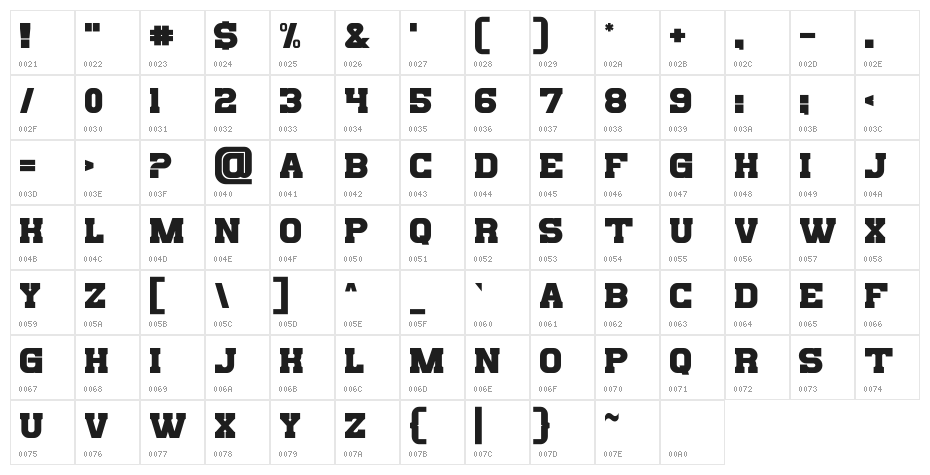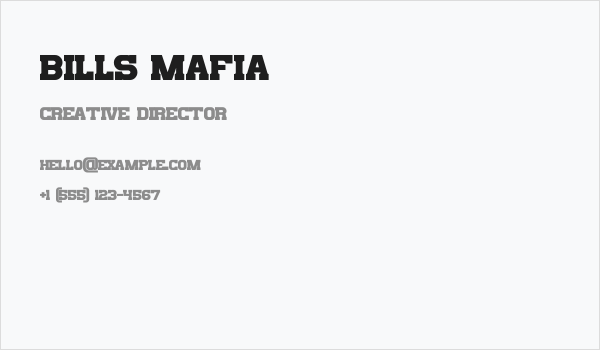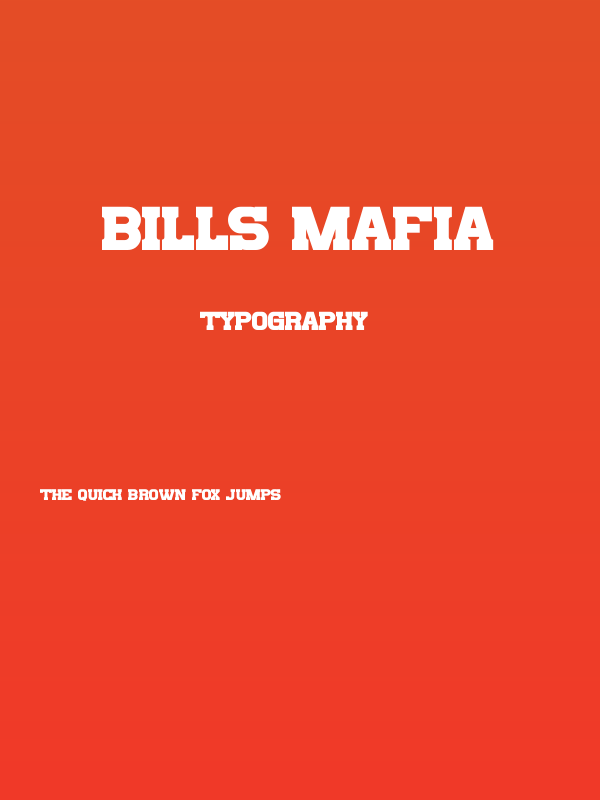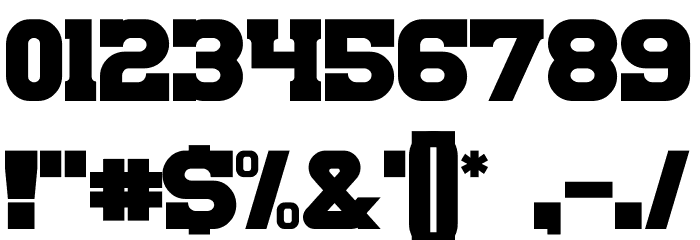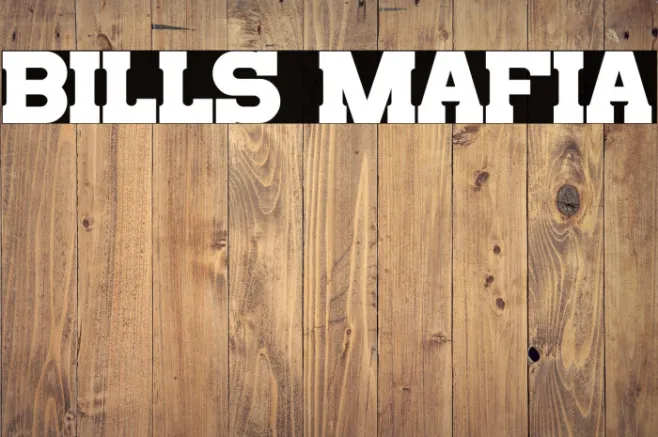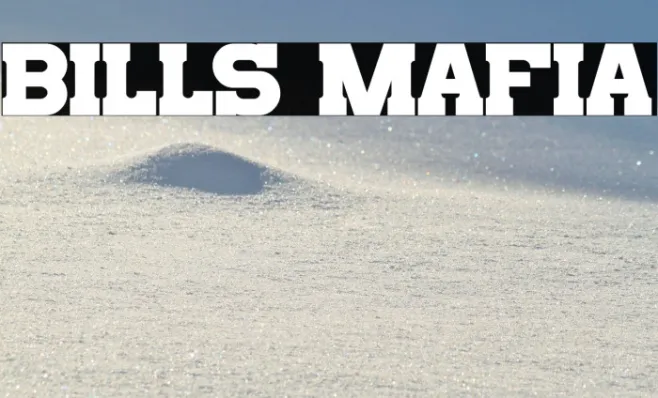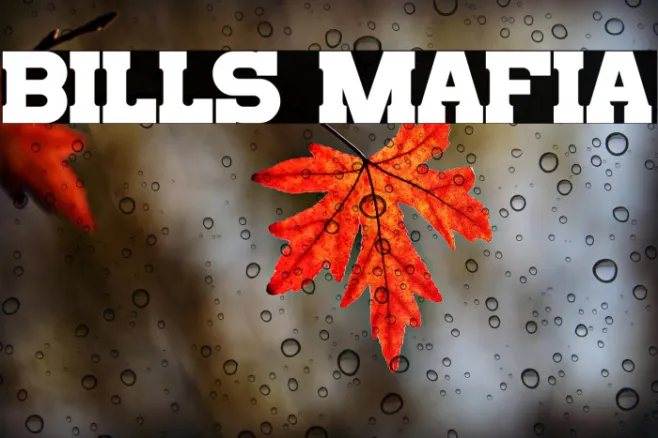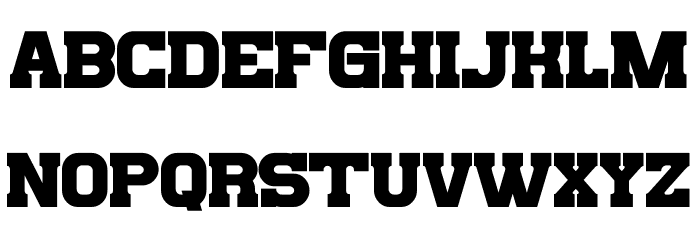
Bills Mafia Font
Bills Mafia Description
This font is a bold, impactful typeface characterized by its strong, block-like appearance. The letters are uniformly wide, with a consistent stroke thickness that gives it a robust and sturdy look. The uppercase and lowercase letters maintain a cohesive style, with the uppercase being particularly prominent and commanding attention. The numerals are equally bold, ensuring they stand out in any context. Special characters are designed to match the overall aesthetic, providing a seamless integration with the alphabetic characters. This font is ideal for projects that require a strong visual presence.
| Proposed Projects | Ideal for sports branding, posters, headlines, and any design needing a bold statement. |